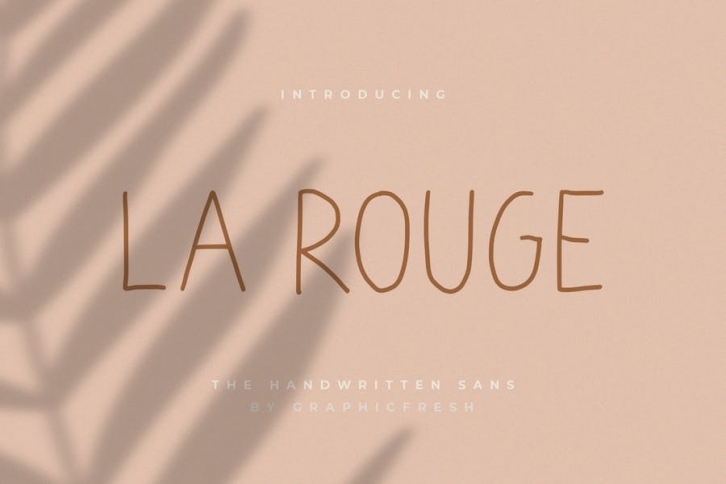
La Rouge - Handwritting Sans
La Rouge - Handwritting Sans - A Handwritten Sans Serif, every single letter has been carefully crafted to make your text looks beautiful. it's perfect for logos, name card, magazine layouts, invitations, headers, or even large-scale artwork.
• La Rouge - Regular,Medium and oblique version, sans serif font All caps characters, numerals and more of symbols.
• Multilingual support for various languages